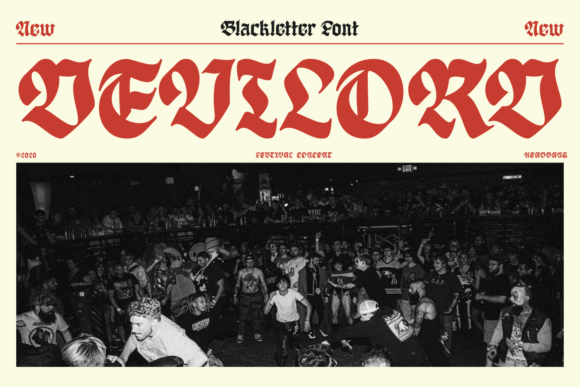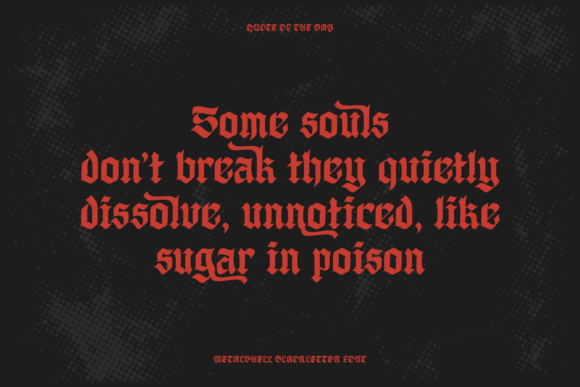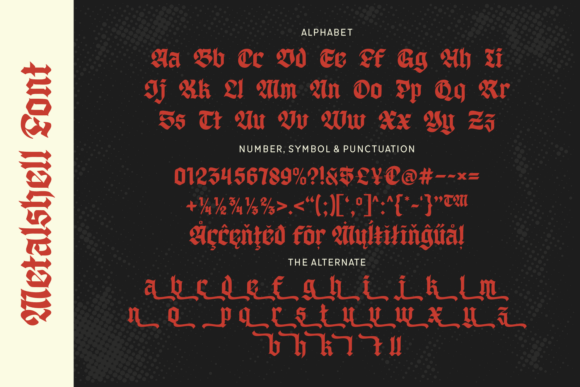
Introduction to Metalshell Font Font
Fonts play a crucial role in design, and the Metalshell Font font is a typeface that brings both character and versatility to any project. Whether you’re working on a branding project, a website, or a print design, the Metalshell Font font offers a unique style that can elevate your work.
Metalshell is a fierce blackletter font built for bold expression.
With its razor-sharp strokes and traditional Gothic forms, this typeface delivers high-impact attitudeβperfect for metal band logos, horror titles, biker branding, and edgy apparel The striking red-on-black aesthetic and gritty texture make Metalshell a must-have for dark, rebellious designs.
Key Features of Metalshell Font Font
Why Choose Metalshell Font Font?
The Metalshell Font font is more than just a typeface β it’s a design tool that helps you communicate your message with style and clarity. Its unique character set and versatile design make it suitable for a wide range of applications, from elegant invitations to bold headlines.
With its carefully crafted letterforms and balanced proportions, the Metalshell Font font ensures readability and visual appeal across all mediums.
What makes Metalshell Font font special?
The Metalshell Font font stands out with its unique design, exceptional readability, and versatility across various design applications.